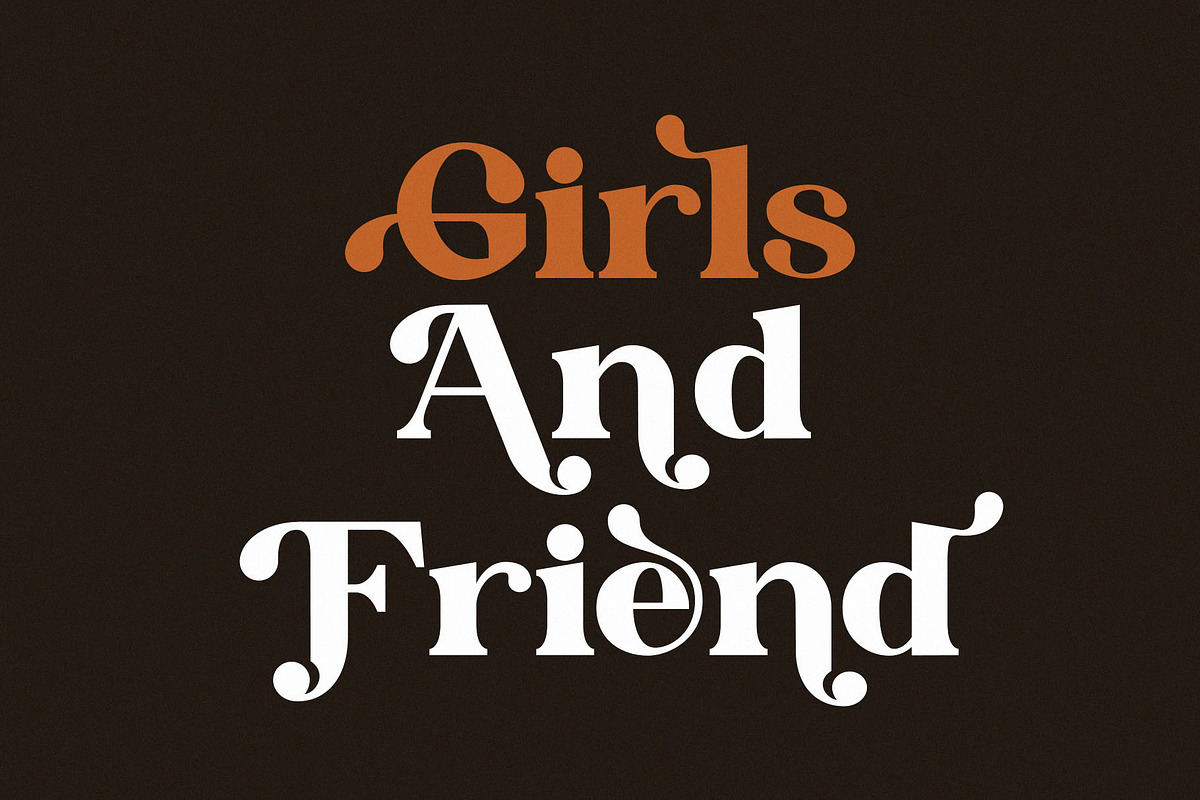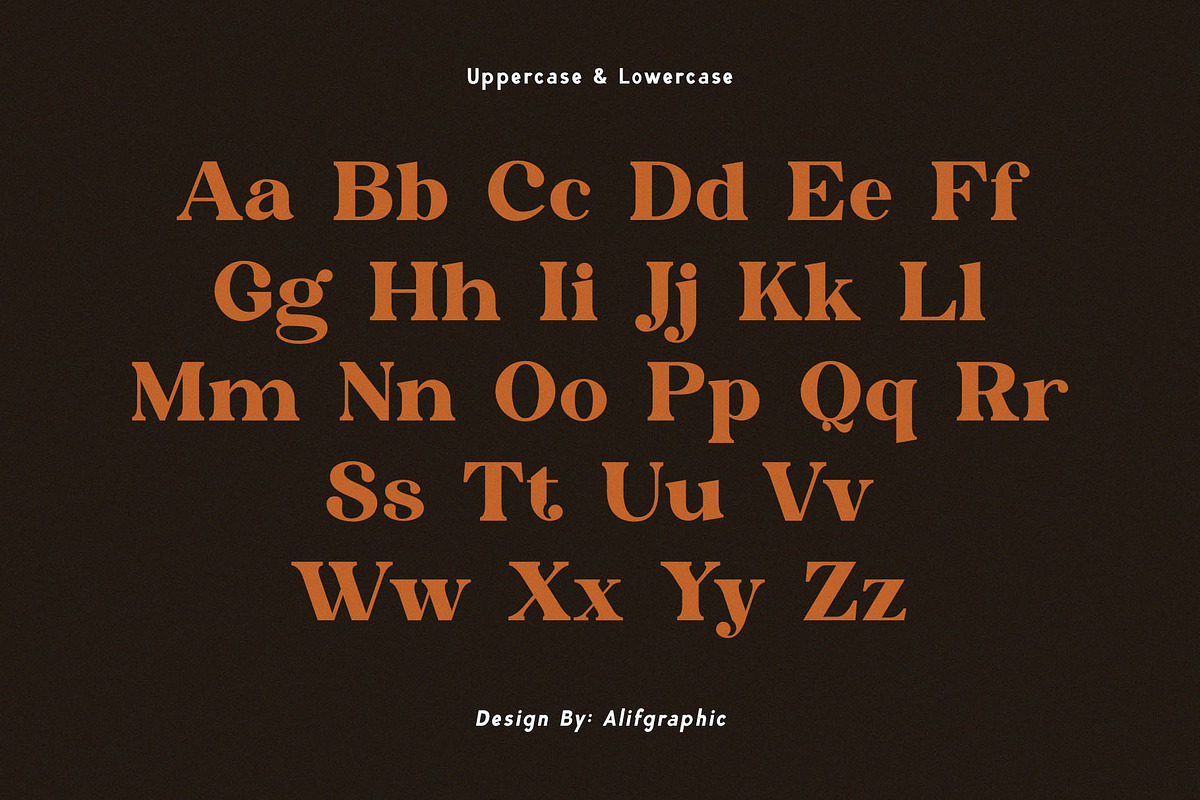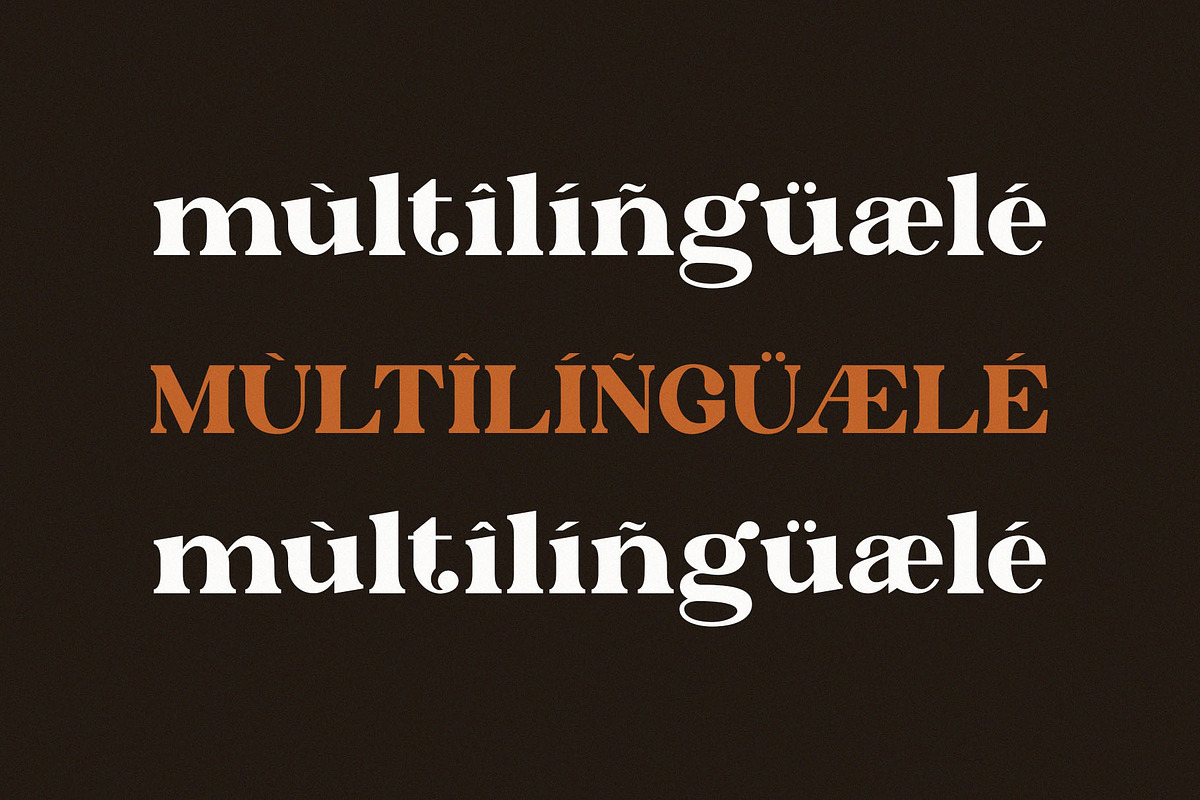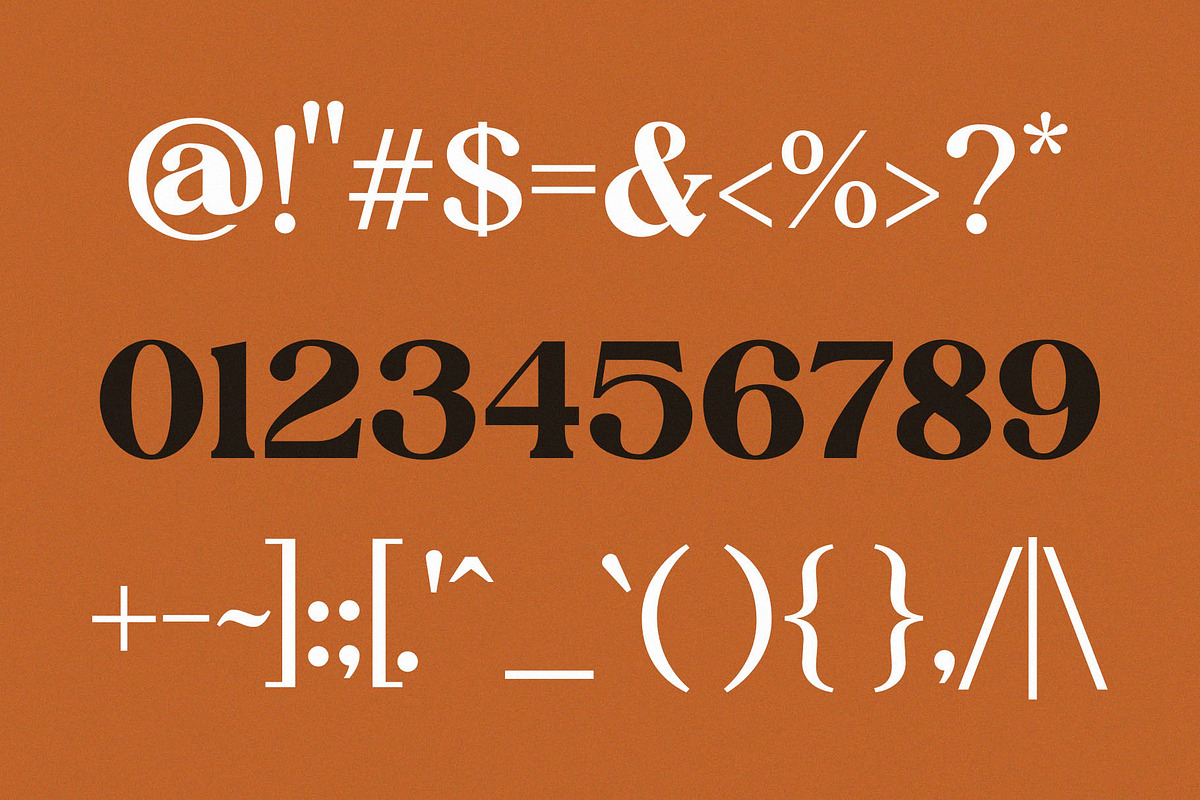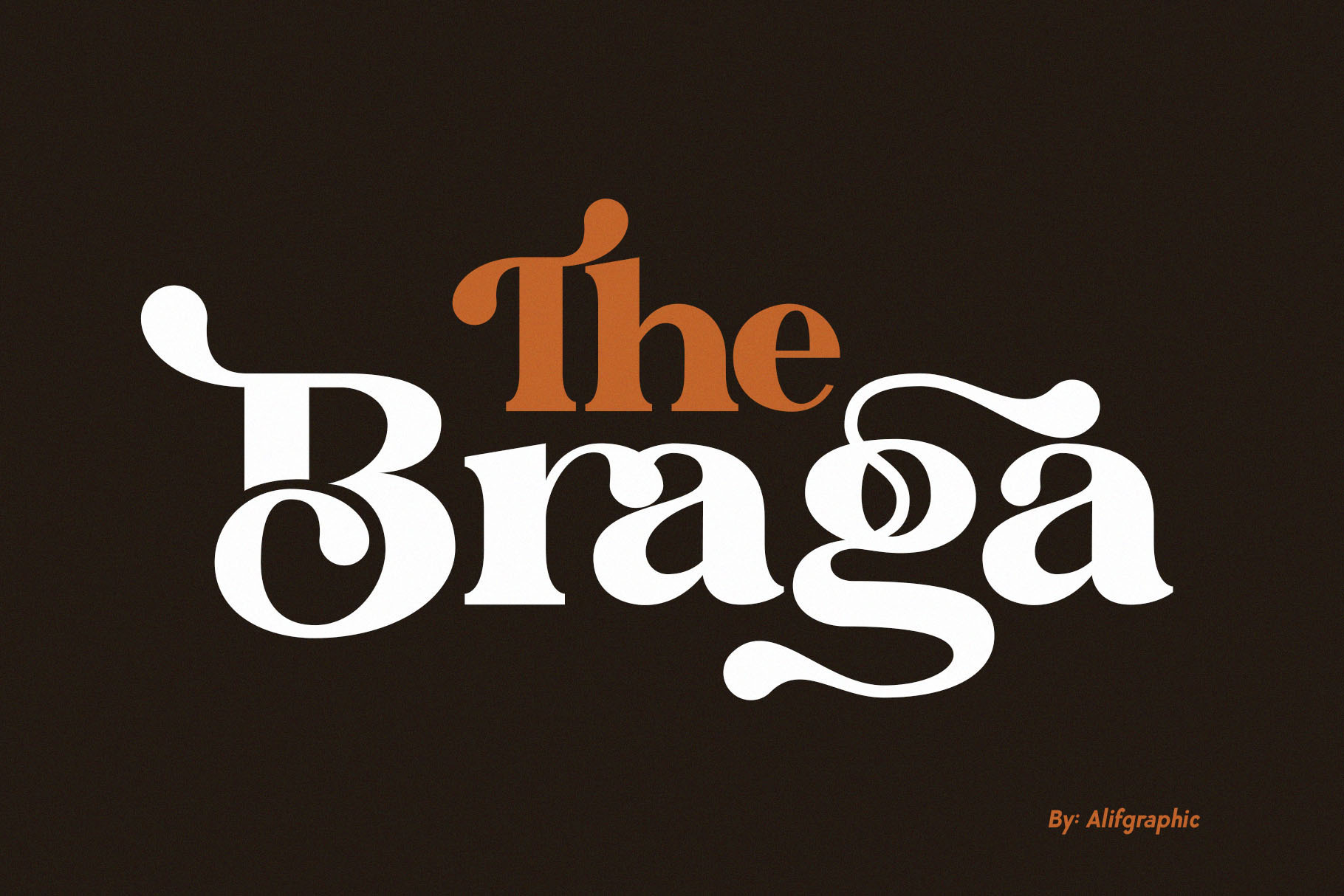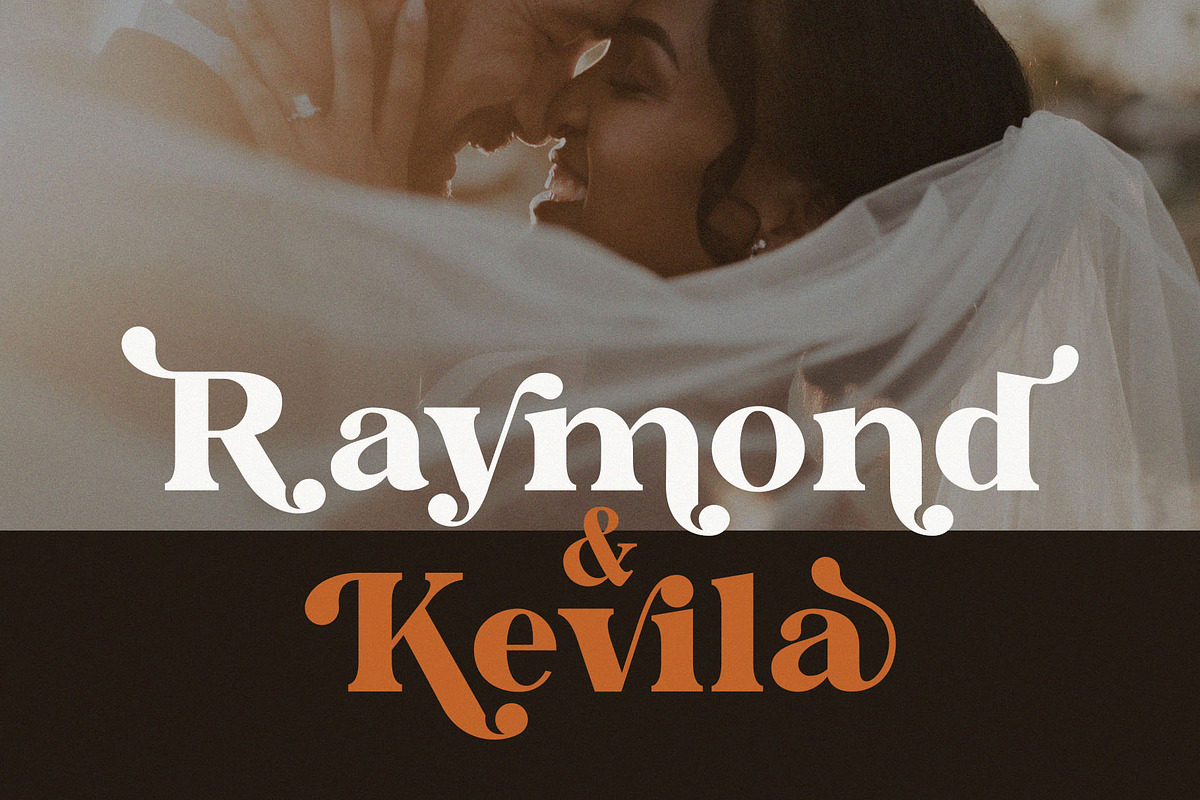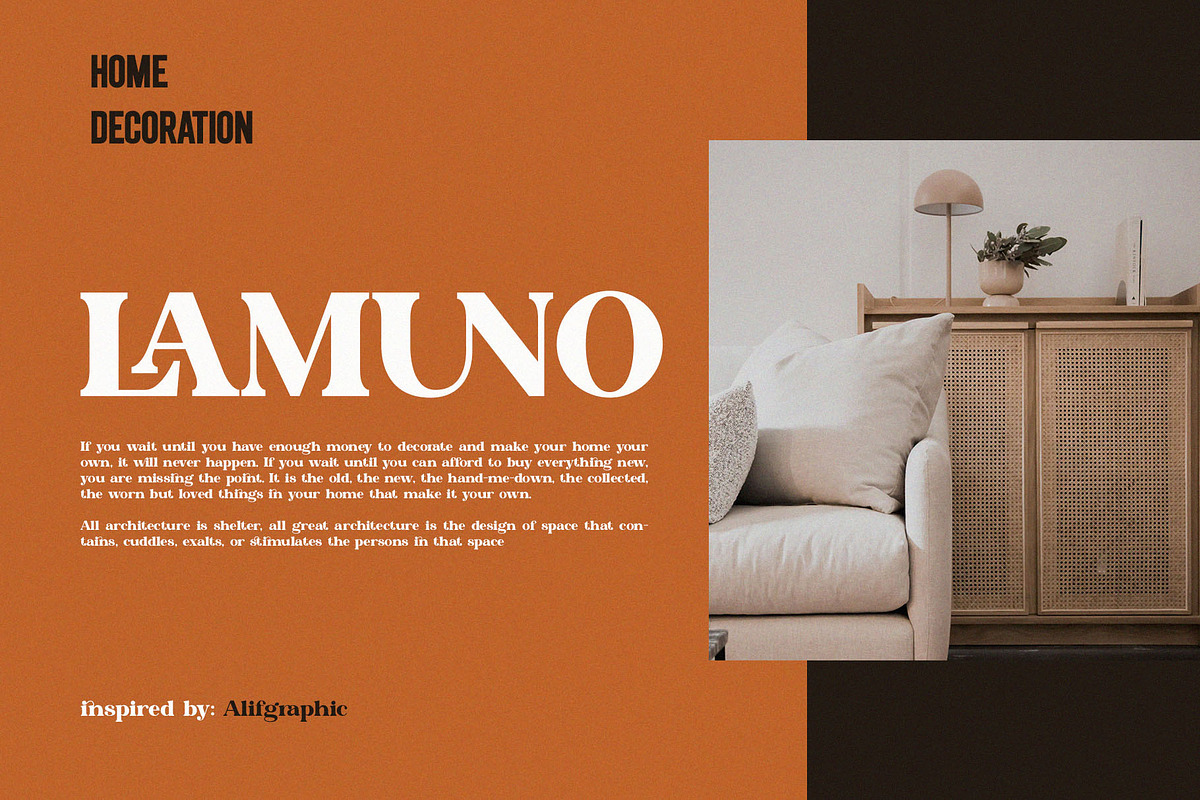
The Braga Modern Font
Introducing 'The Braga' Font:
Explore the captivating world of 'The Braga' font, featuring a beautiful series of letters meticulously crafted to enhance your writing experience. The neat lettering is specifically designed for modern and visually pleasing writing needs, striking a perfect balance between a contemporary feel and enduring elegance.
Unleash your creativity and have fun with this font product, as the results are guaranteed to be highly satisfying. Additionally, 'The Braga' font is PUA encoded, providing easy access to all glyphs and swashes.
Ideal for:
- Modern Designs
- Beauty and Fashion
- Invitation Card Designs
- Social Media Designs
- Advertising Campaigns
- Ready for Creative Expression
- Immaculately Crafted Letters